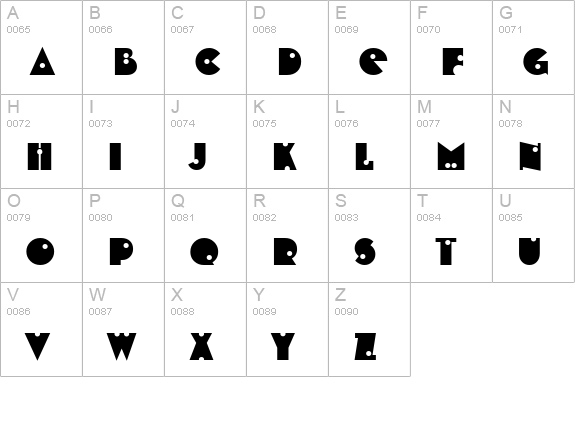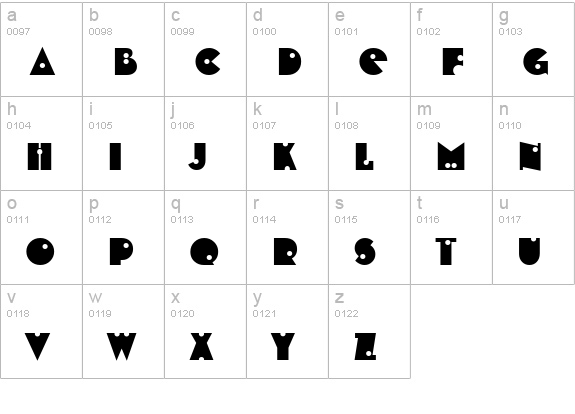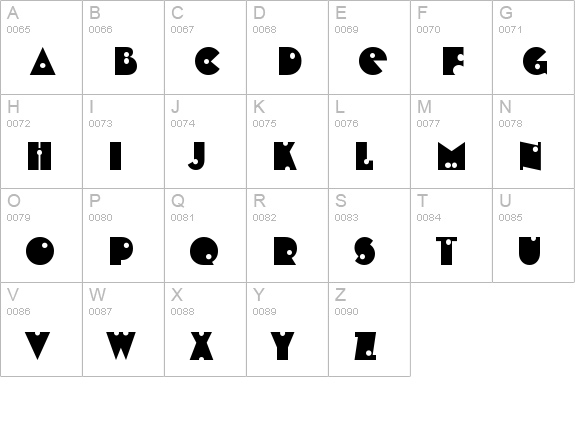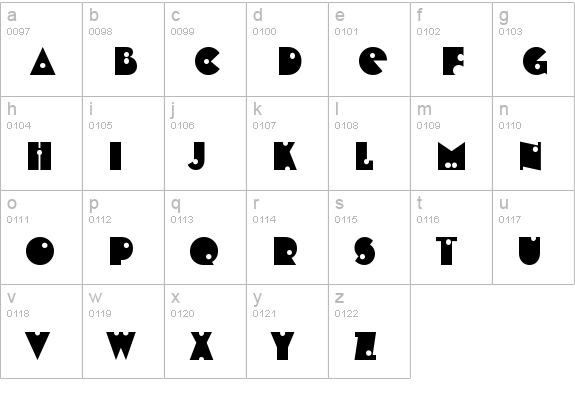
ShotShell Font Details
Introducing ShotShell, a captivating and versatile font that will take your designs to the next level. With its unique blend of elegance and boldness, ShotShell is the perfect choice for a wide range of projects. Whether you're designing a logo, crafting a stylish invitation, or creating eye-catching headlines, this font will make a lasting impression. ShotShell's clean lines and modern aesthetic make it a standout choice in any design setting. Its carefully crafted letterforms are both sleek and legible, ensuring that your message is delivered with clarity and impact. The attention to detail in every curve and stroke of this font truly sets it apart. One of the most exciting aspects of ShotShell is that it is completely free. Yes, you read that right - this stunning font is freely available to download at FontsMarket.com. This means that you can bring your creative visions to life without breaking the bank. With ShotShell, you have the opportunity to access a high-quality font that is both versatile and cost-effective. Whether you're a professional designer or a casual creator, ShotShell is sure to become your go-to font. Its timeless appeal and wide range of applications make it the perfect addition to any design toolkit. So why wait? Head over to FontsMarket.com and unlock the power of ShotShell today.